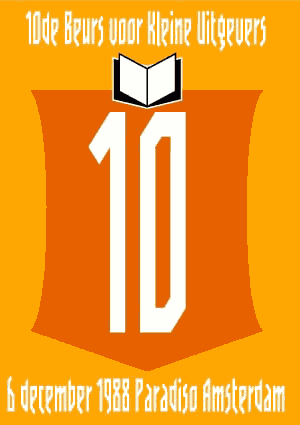
Traveller, Max Kisman. 1990. This geometric typeface featured in Rick Poynor’s Typography Now 1 (Booth-Clibborn Editions, London UK, 1991). Later, discussing these kinds of angular styles, the critic Rick Poynor noted that “fate has overtaken the angular post-constructivist type design of Neville Brody, Zuzana Licko and Max Kisman”. Poynor described a process by which typefaces, once “fresh, unexpected, precisely attuned to the moment”, get used increasingly often in less and less appropriate contexts and end up looking “irredeemably passé”. (‘American Gothic’, Rick Poynor in Eye Magazine, 6/1992) |